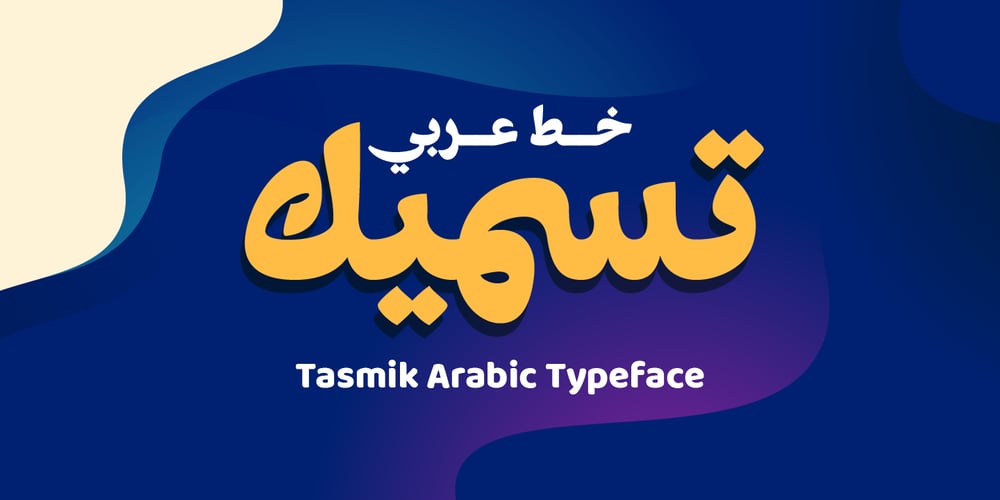
Tasmik Font Family was designed by Nur Syamsi and published by NamelaType. Tasmik contains 1 styles and family package options. Tasmik literally means thickening, this font is thick like extrabold in wight, impressed firm but flexible, suitable for display text and the center of interest.